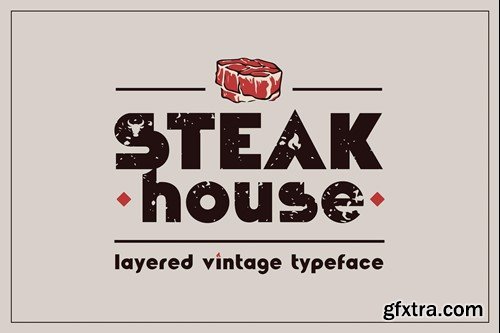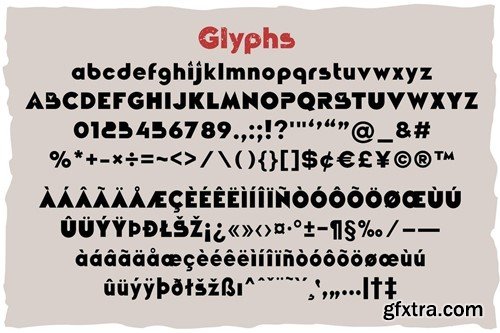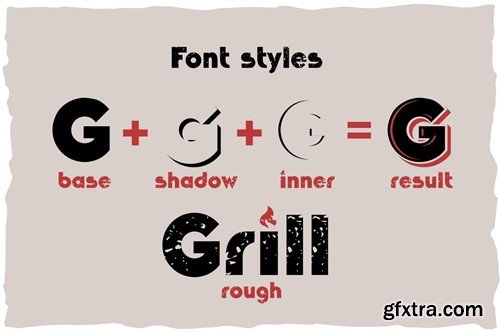
牛排屋 - 层叠复古字体 WSULQNU
Steakhouse - layered vintage font
Steakhouse is a multi-layered vintage font designed for logos and headers, grilling-related products, steaks and more. The font contains 4 writing styles such as: base, shadow, inner shadow and rough. The archive contains 4 OTF files, 3 of which can be superimposed on each other for various design options.